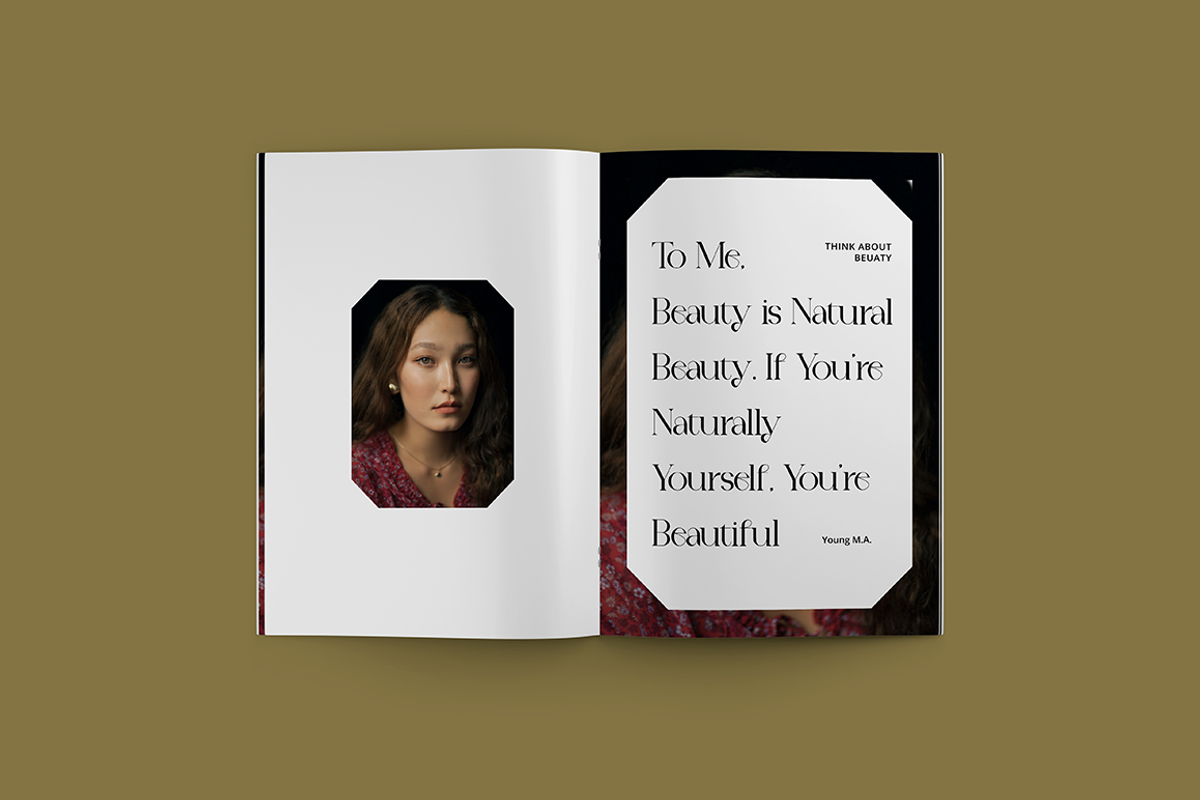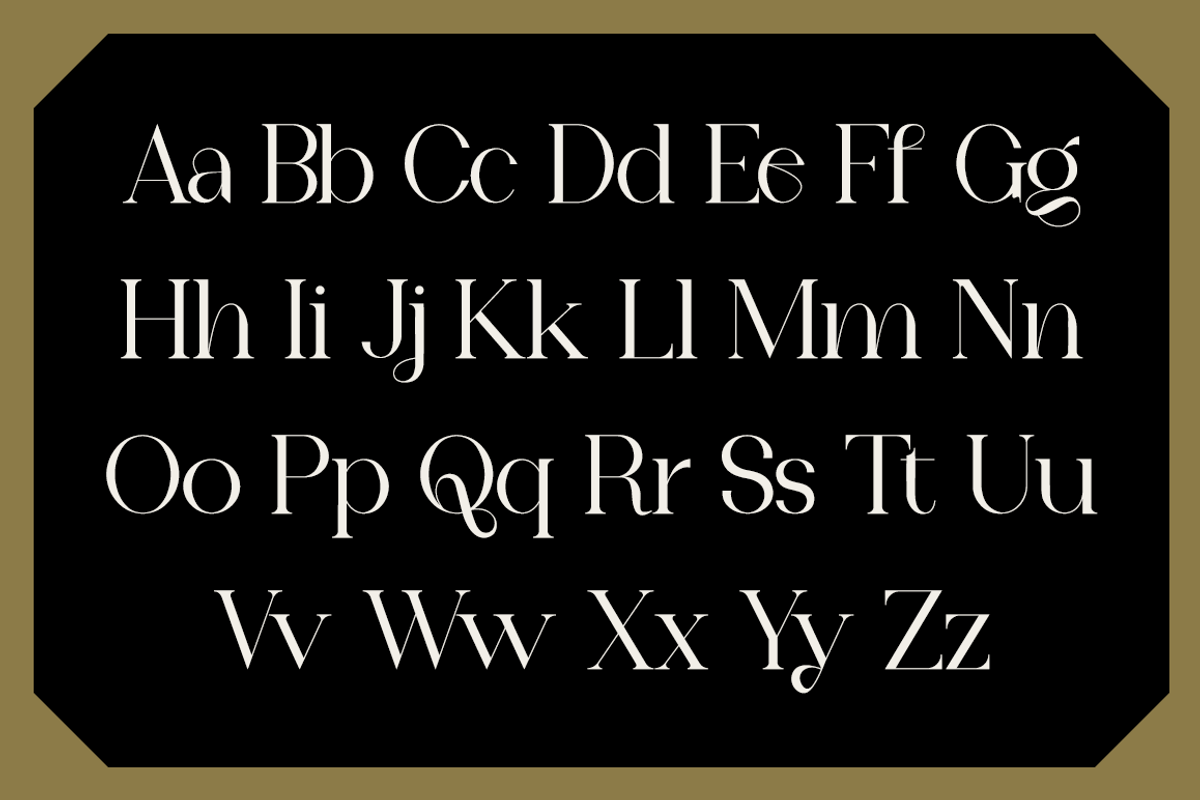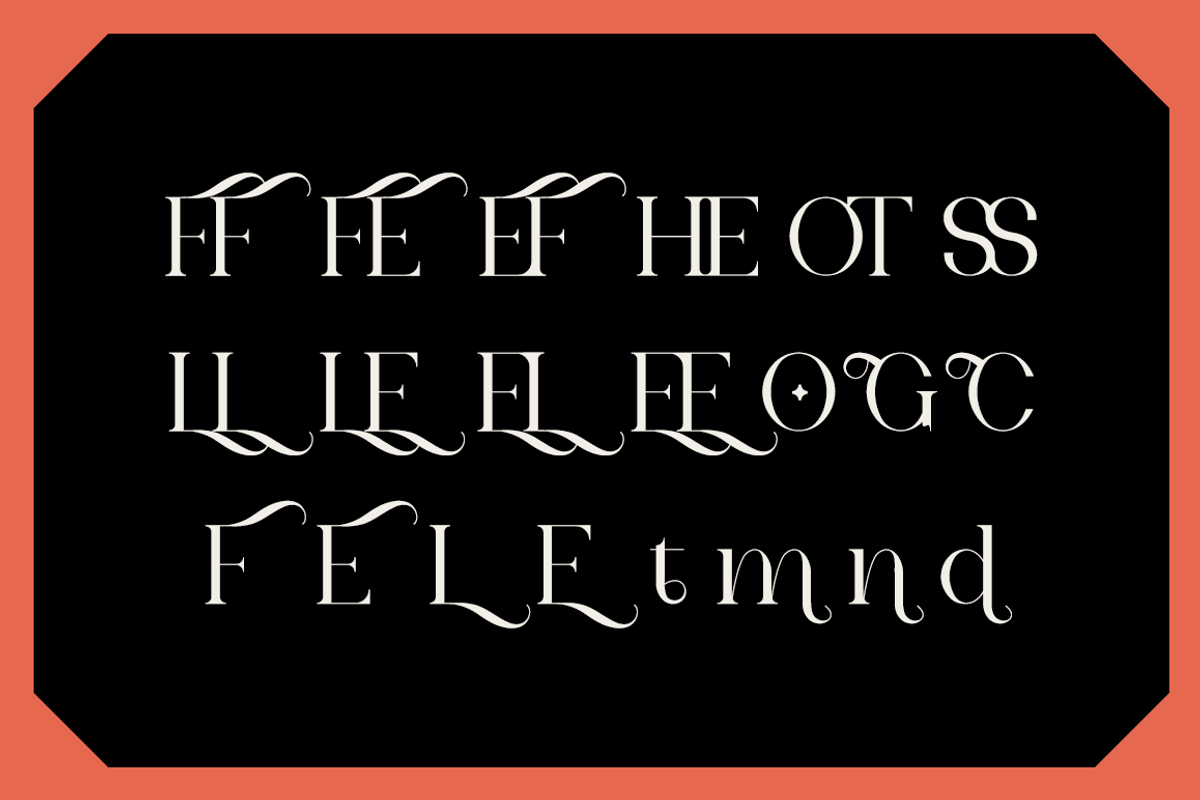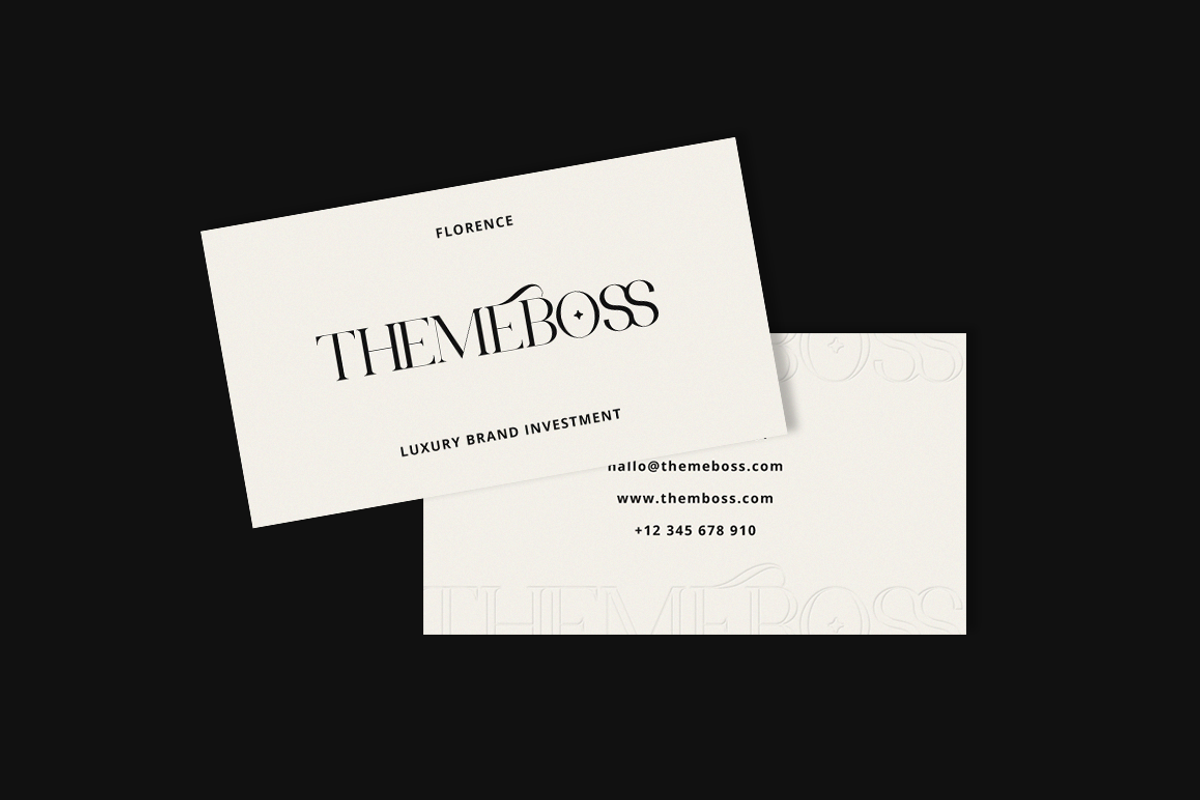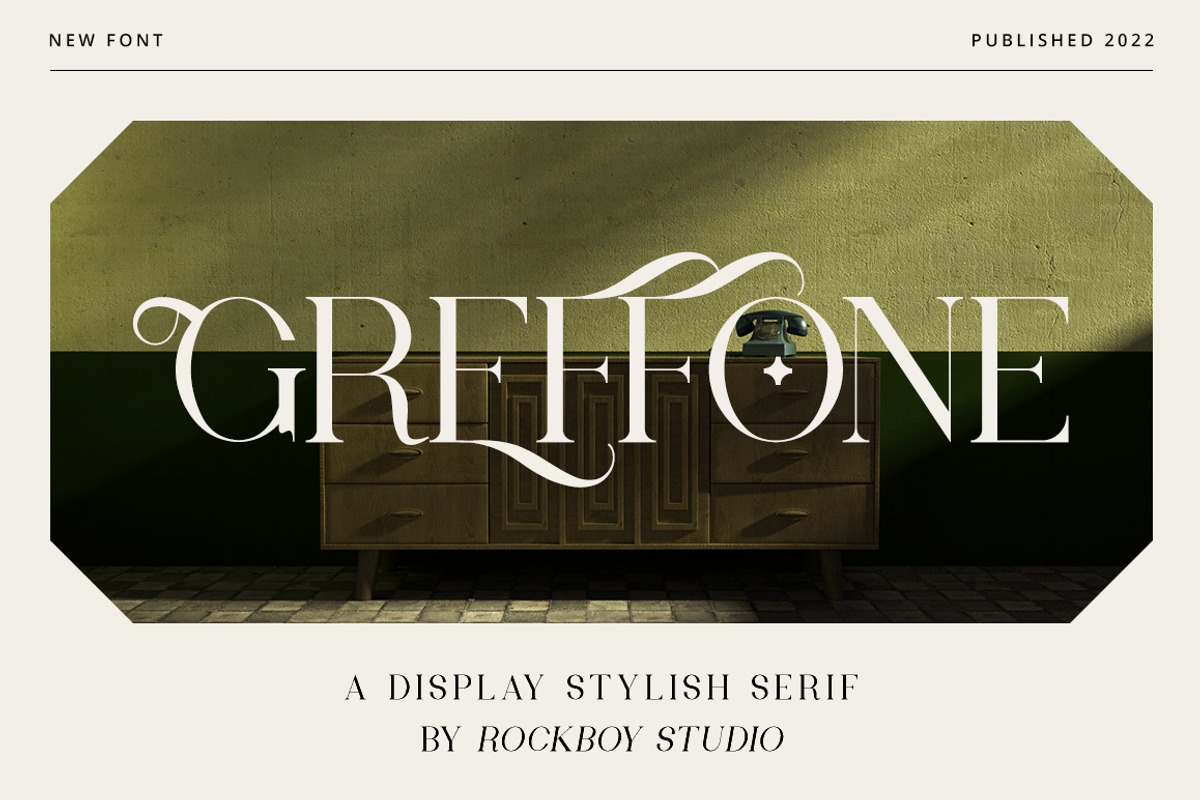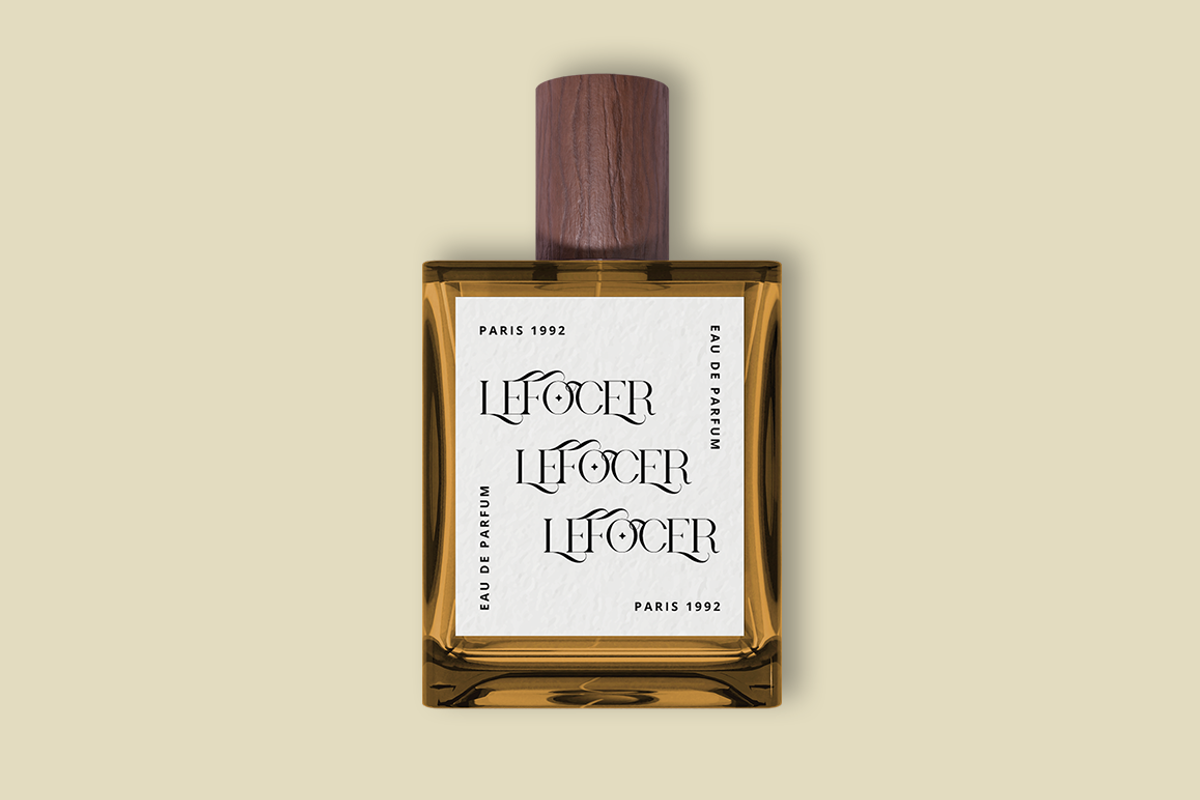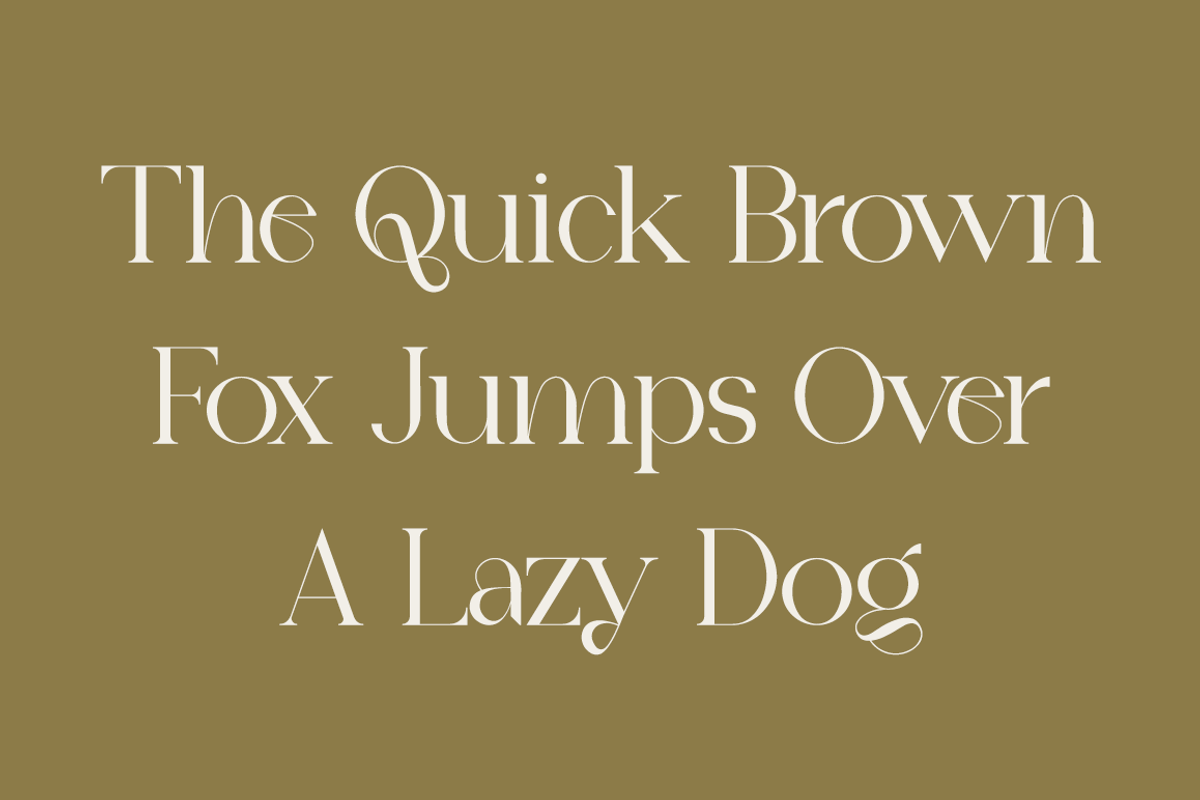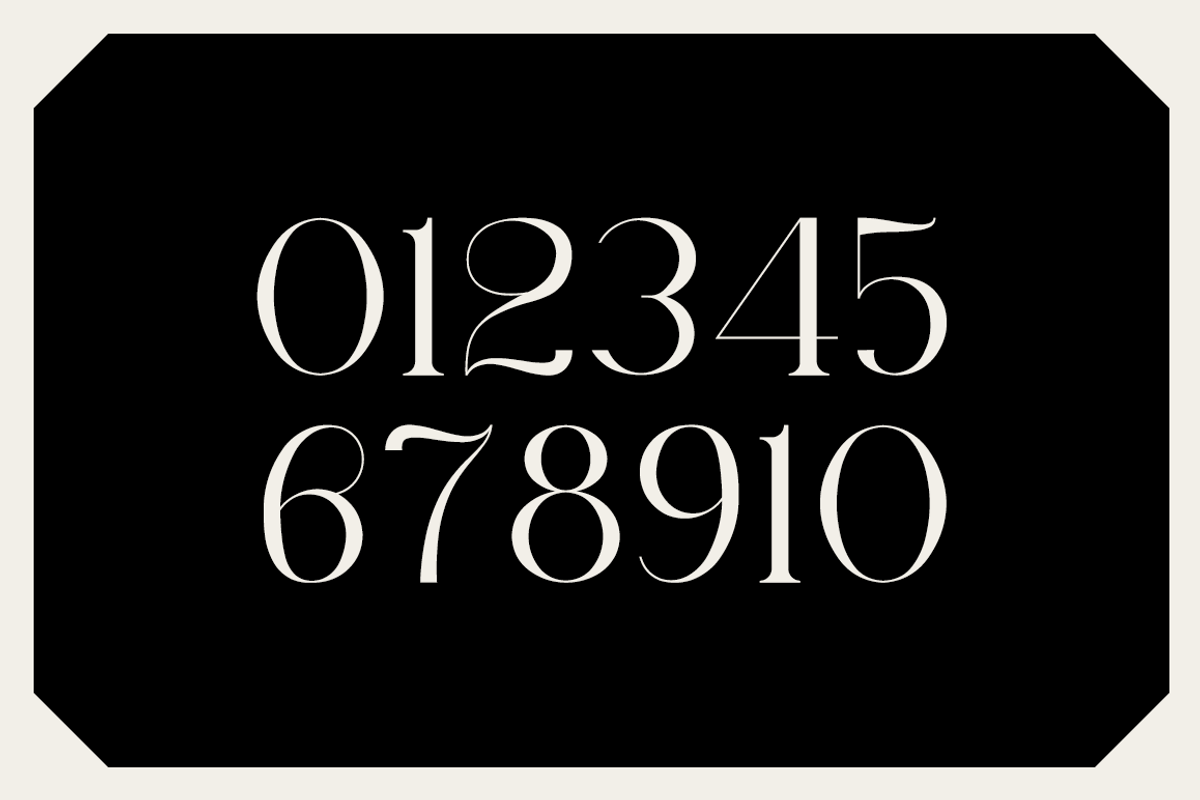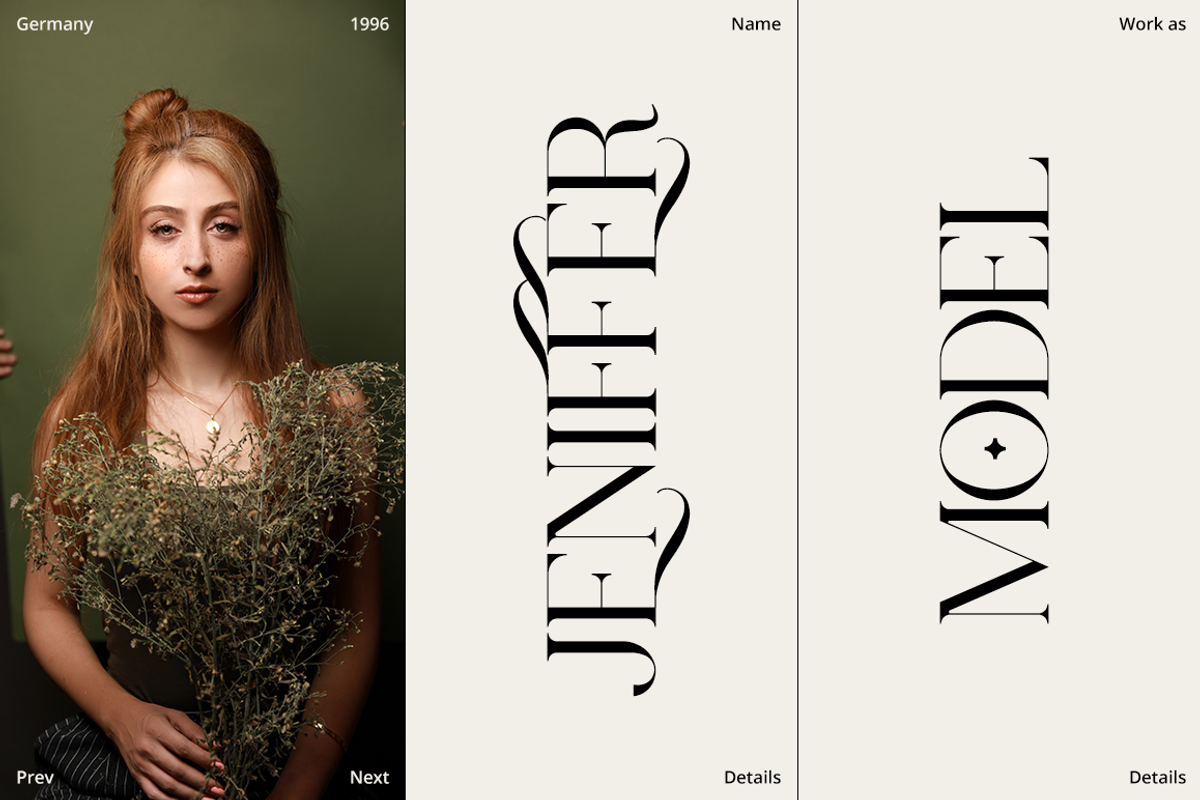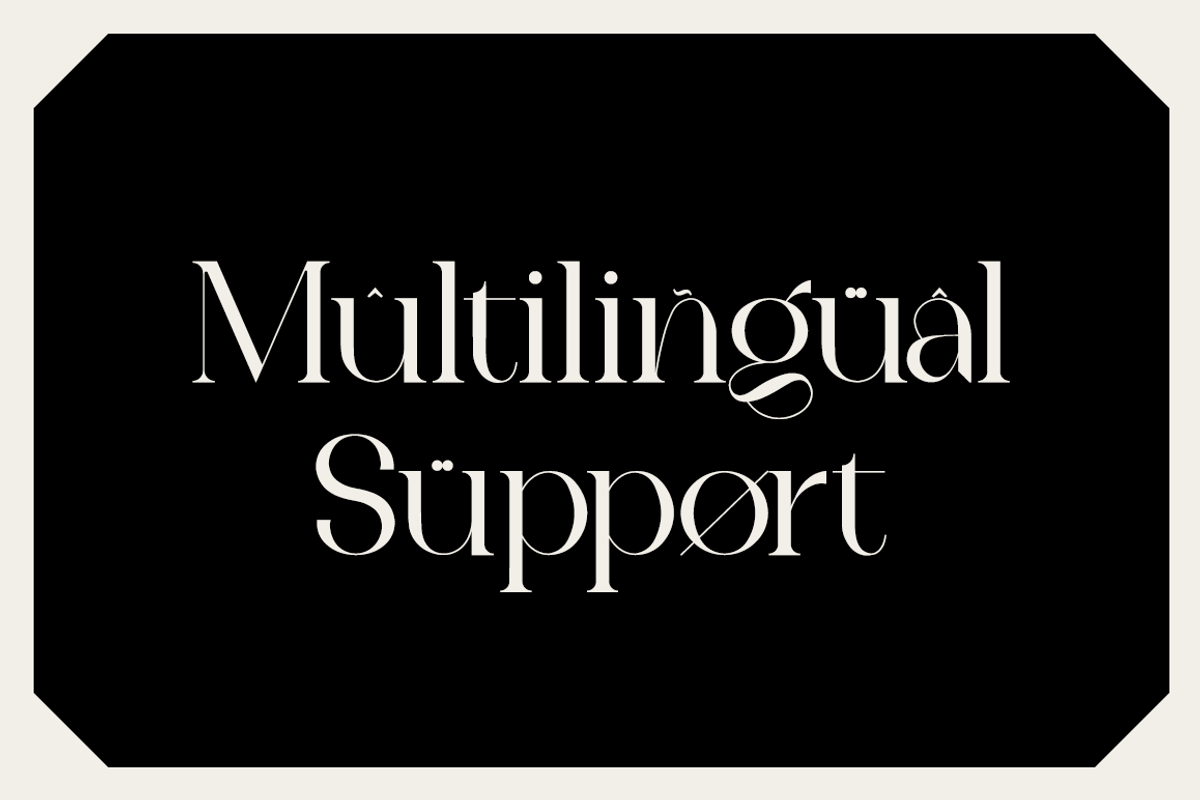
Greffone - Modern Stylish
Greffone is a stylish and elegant serif font. Fall in love with its incredibly distinct and timeless style and use it to create spectacular designs!